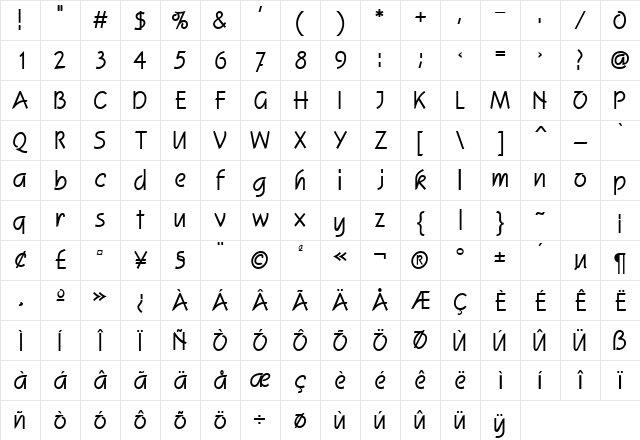
SkizzeDB Bold Free Font
SkizzeDB Bold
Design Context for SkizzeDB
SkizzeDB is a composed and adaptable typeface that performs quietly and consistently across a wide range of design contexts. Its bold stroke weight gives it real presence on the page.
Pro Tip: Use SkizzeDB in both headline and body roles to test its range before committing to a single application.